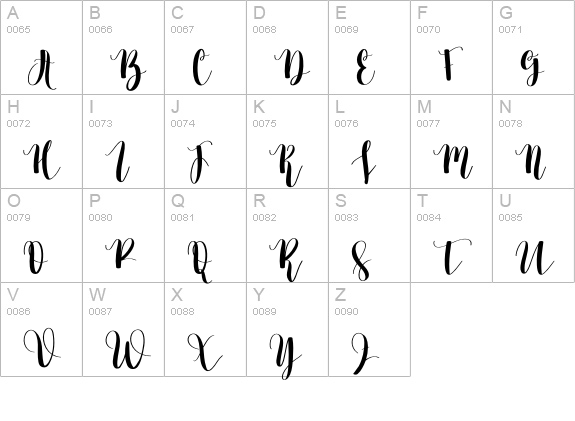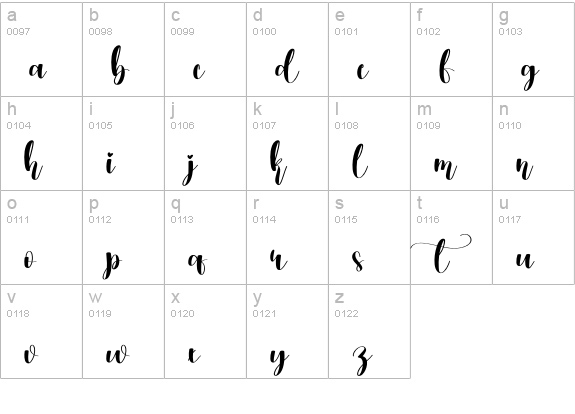
Milkshake Font Details
Milkshake is a free for personal use font in the Script > Handwritten category, designed by scratchones. It has been downloaded 13 times and is available for Windows, Mac and Linux.
Introducing Milkshake font - a delightful and fun display typeface that exudes charm and creativity. With its playful and whimsical design, Milkshake is perfect for adding a touch of personality to your projects. Whether you're working on invitations, posters, or branding materials, this font will surely make your designs stand out.